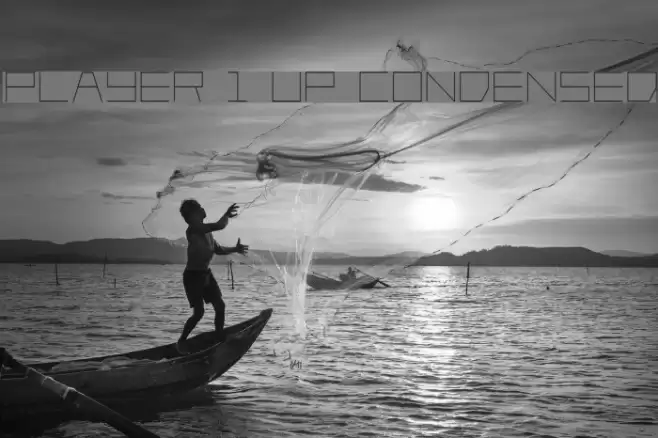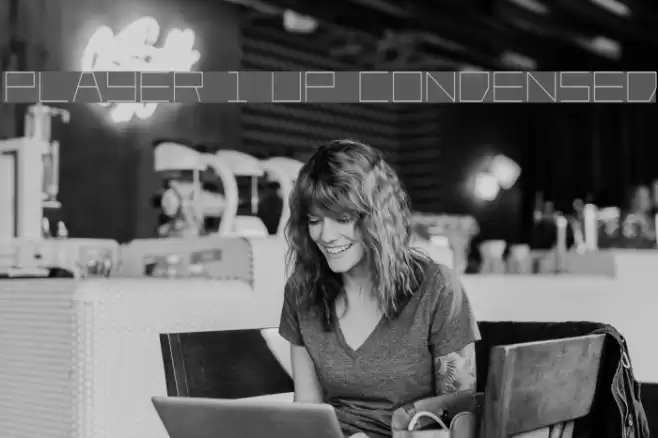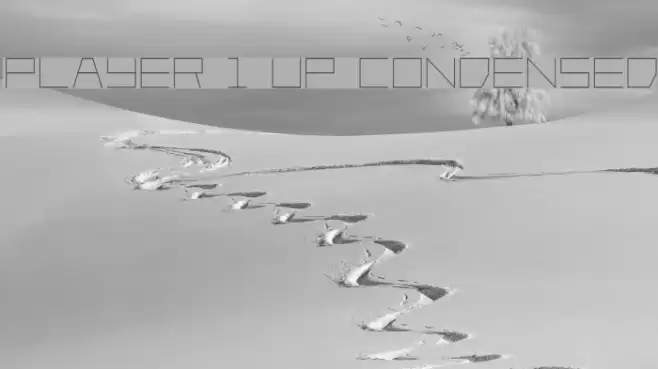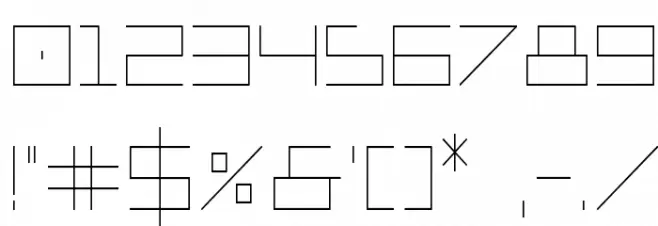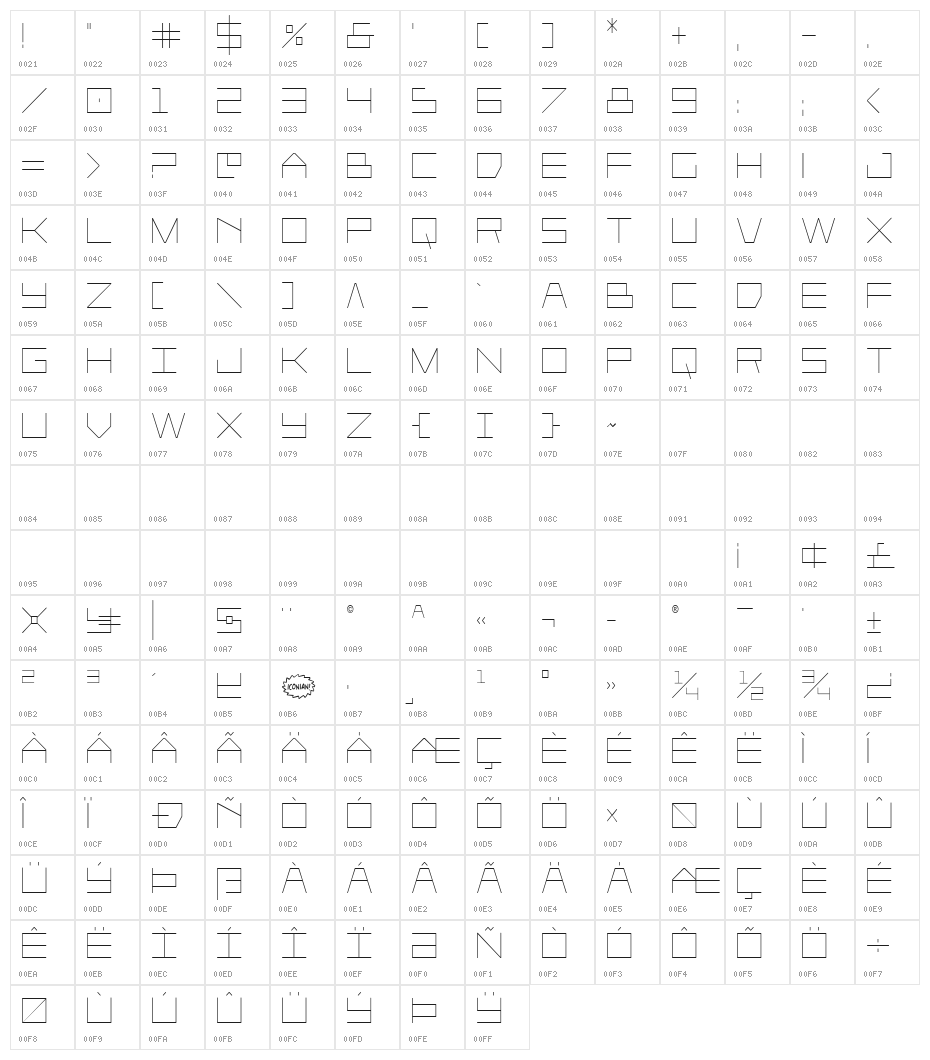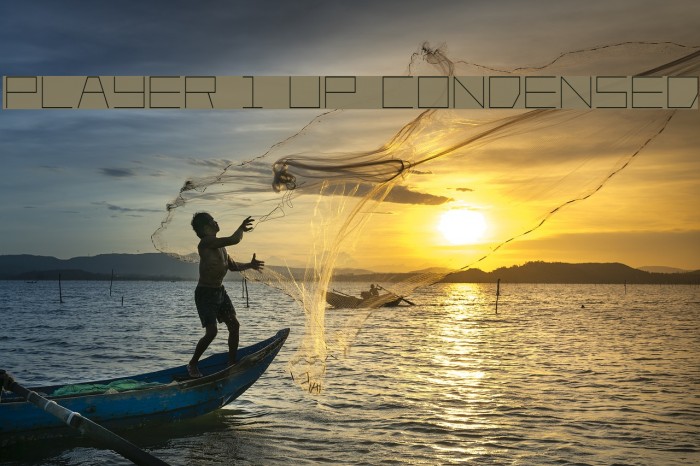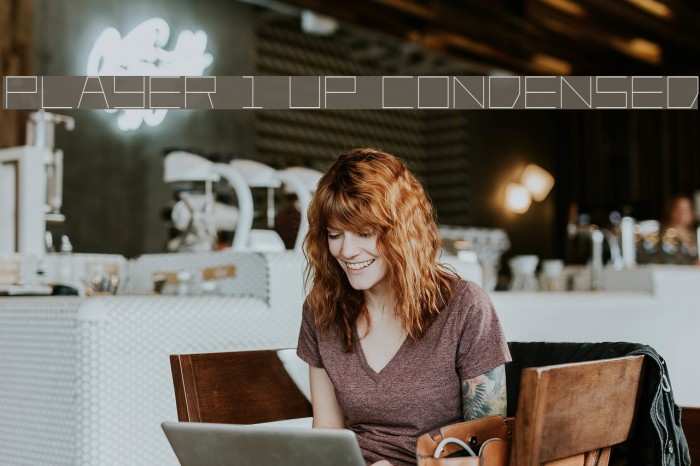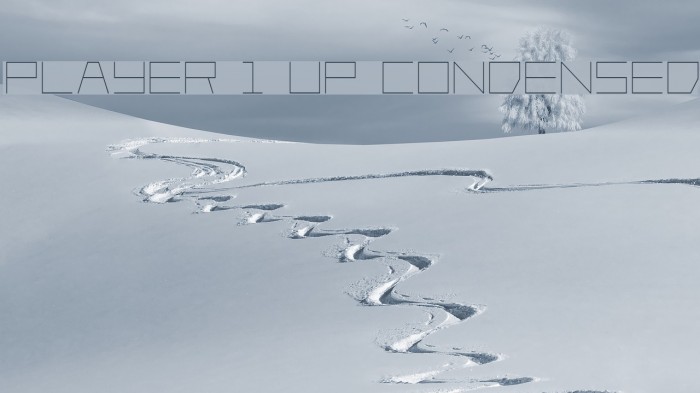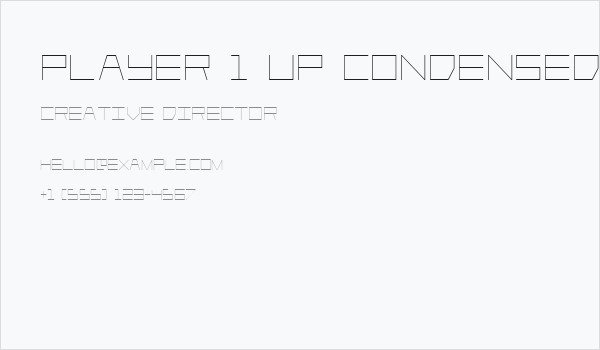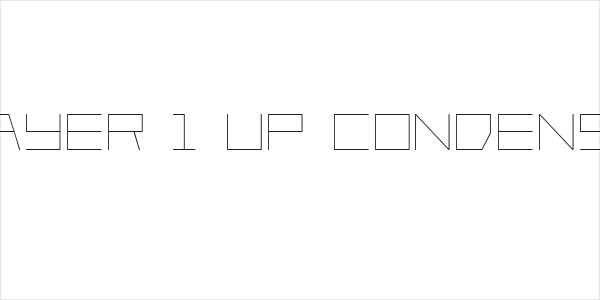
Player 1 Up Condensed Font
Player 1 Up Condensed Description
This font features a geometric, minimalist design with a distinctly modern and futuristic aesthetic. The characters are constructed with thin, uniform lines that create a wireframe appearance, emphasizing a sense of precision and clarity. The uppercase and lowercase letters share a consistent height, contributing to a cohesive and streamlined look. The numerals and special characters maintain the same structural integrity, ensuring uniformity across all glyphs. This font's condensed width allows for efficient use of space while maintaining readability, making it ideal for digital interfaces and tech-oriented designs.
A geometric, minimalist font with a modern, wireframe aesthetic from Futuristic fonts.
- Proposed Projects: Ideal for tech branding, digital interfaces, video game graphics, and futuristic design projects.
- Weight: Light
- Overall Style: Futuristic
- Use Case: Headlines, Logos, Digital interfaces